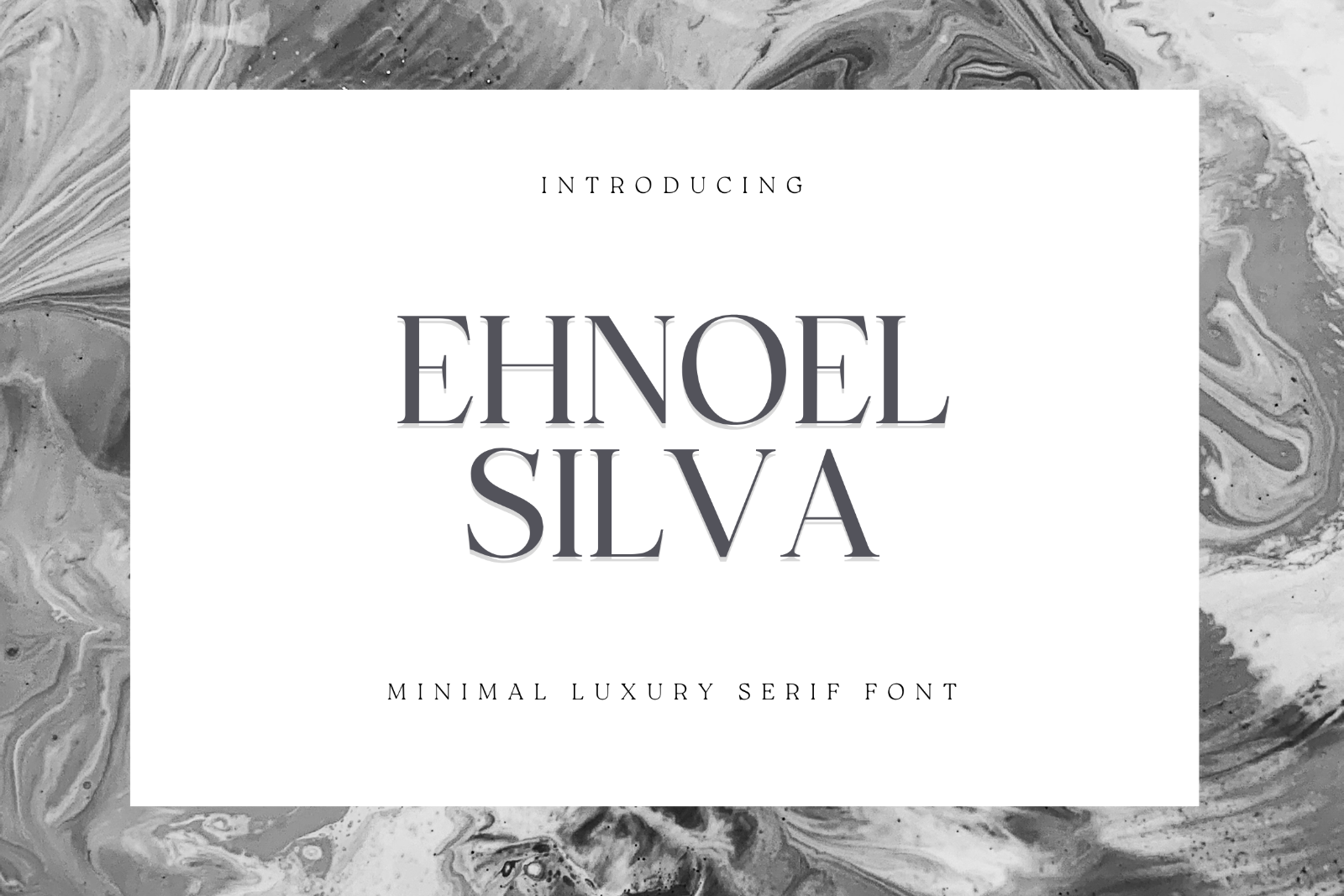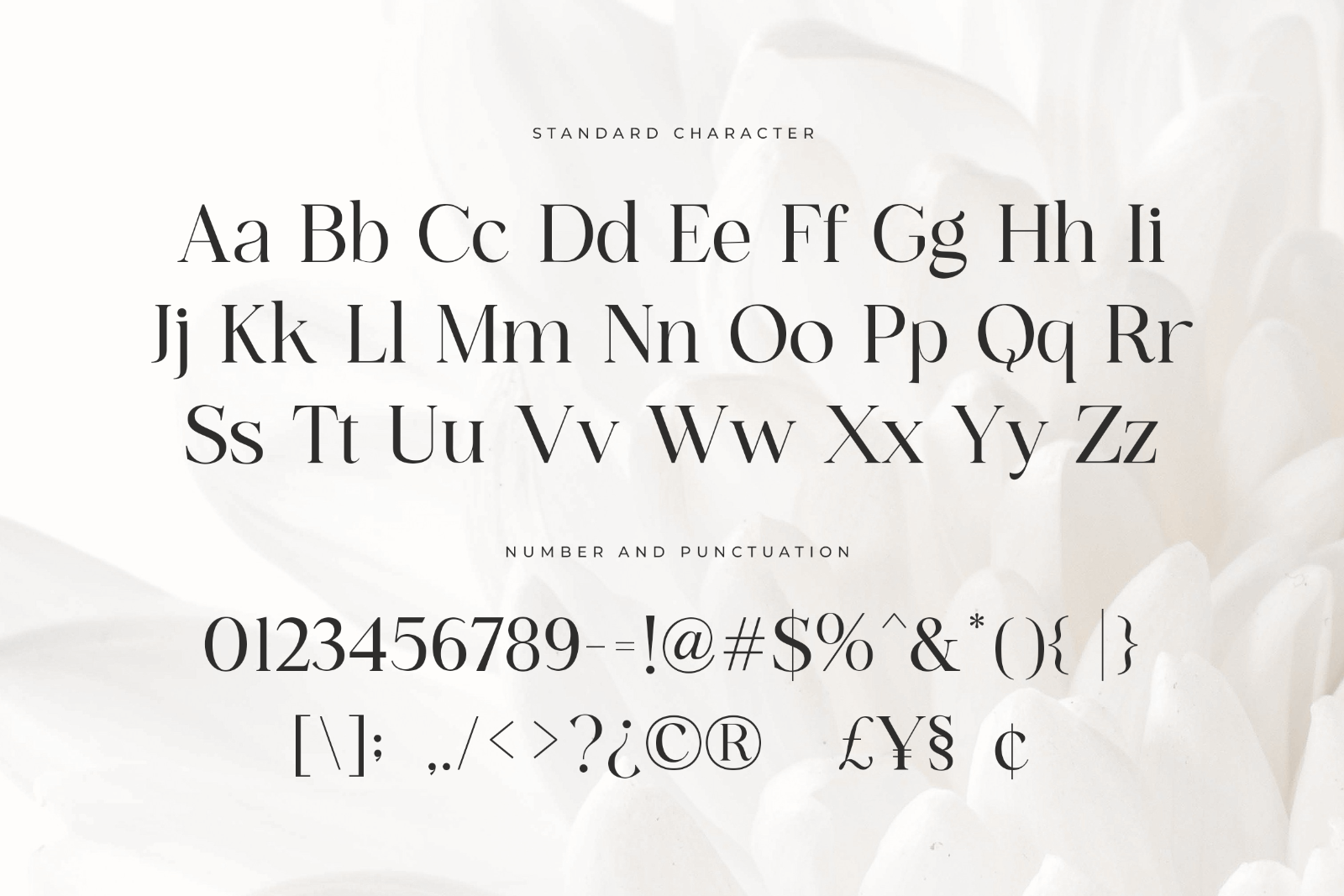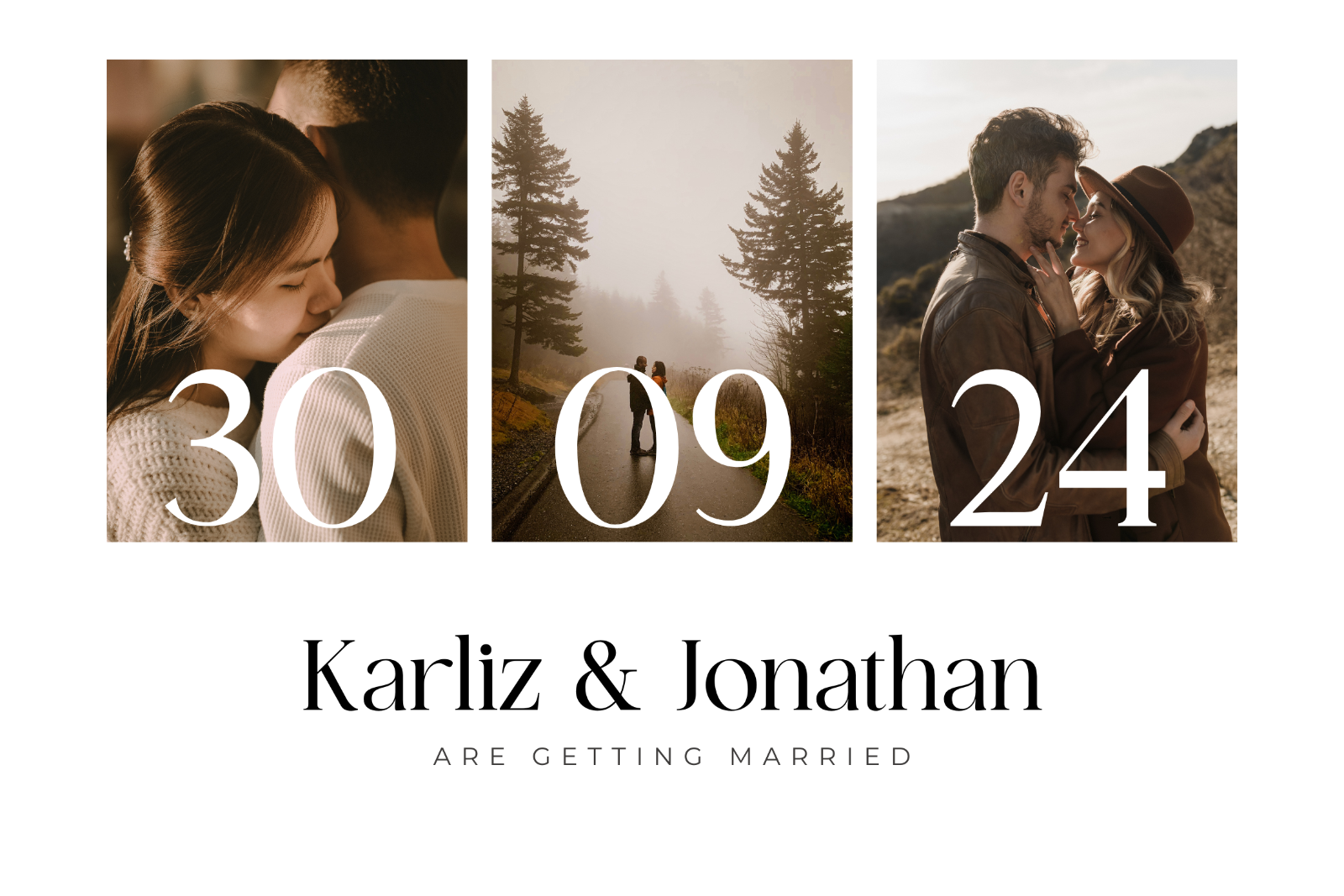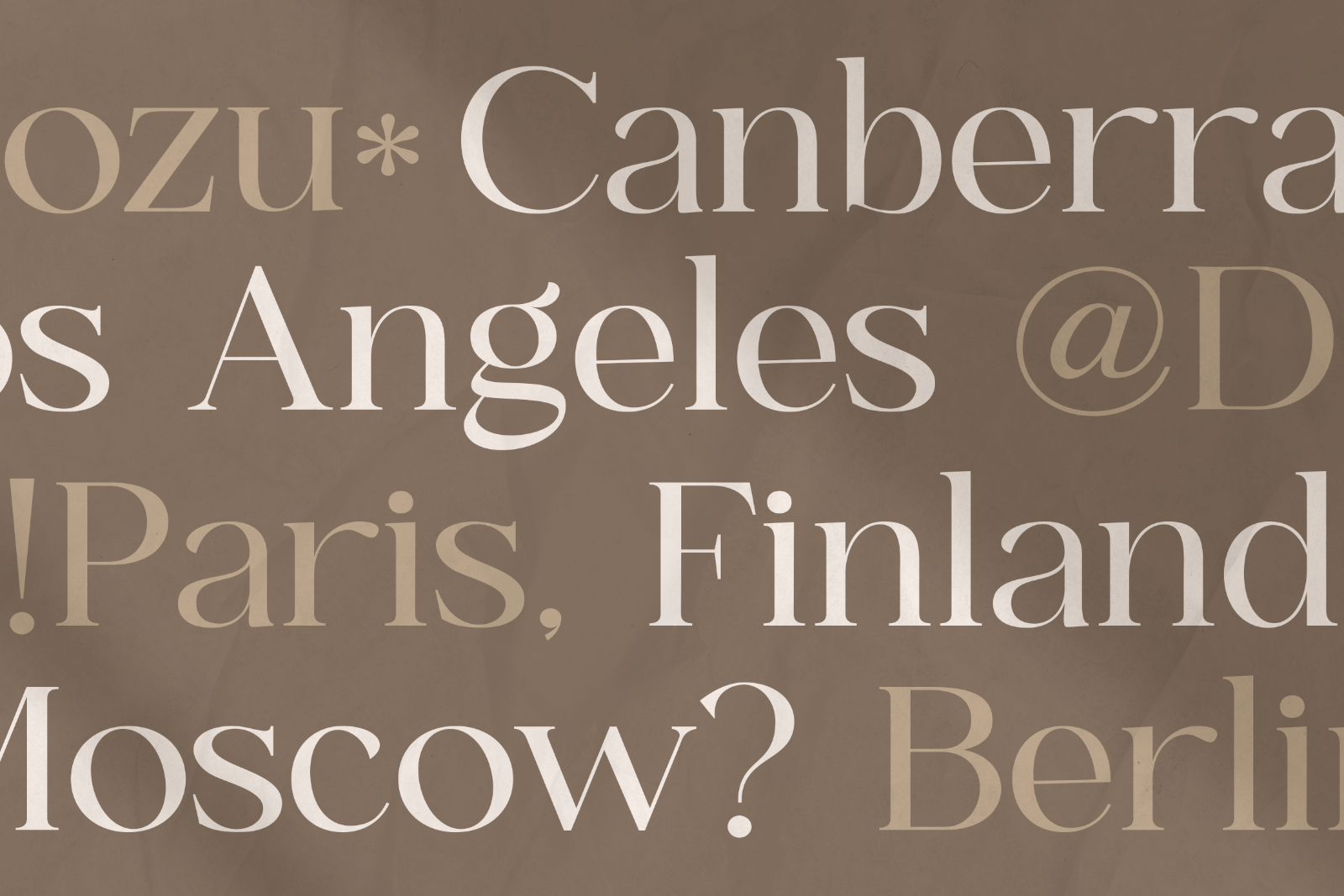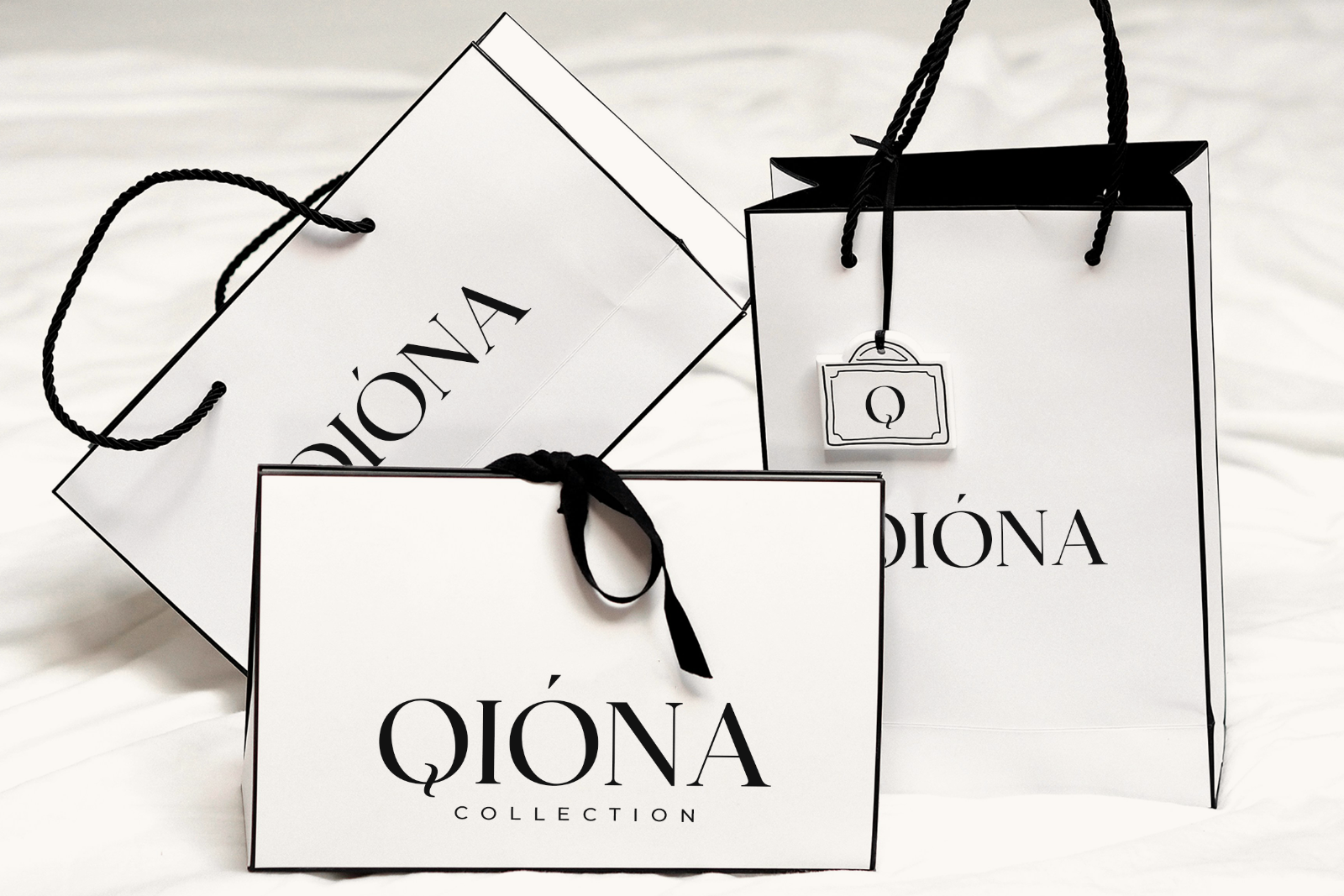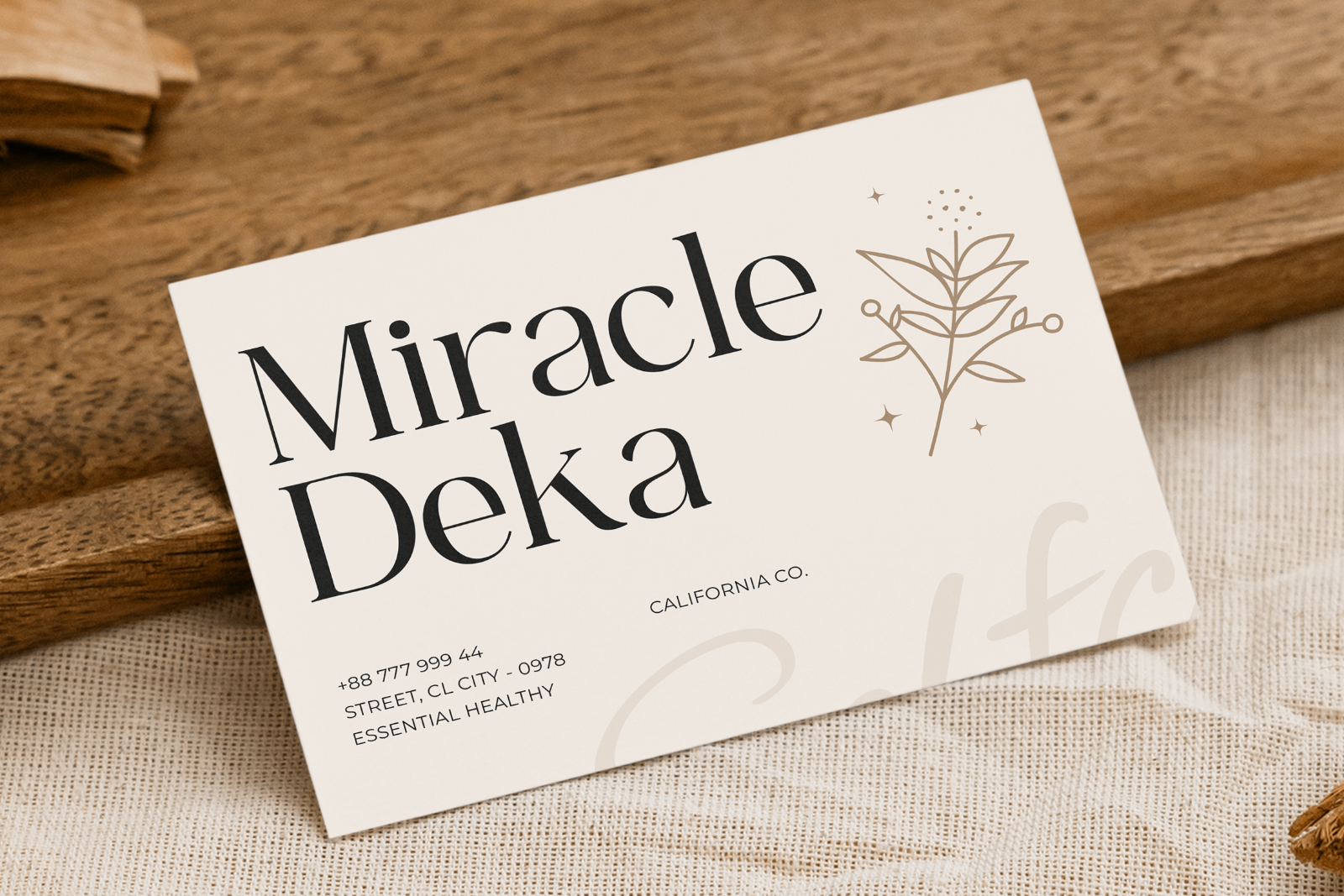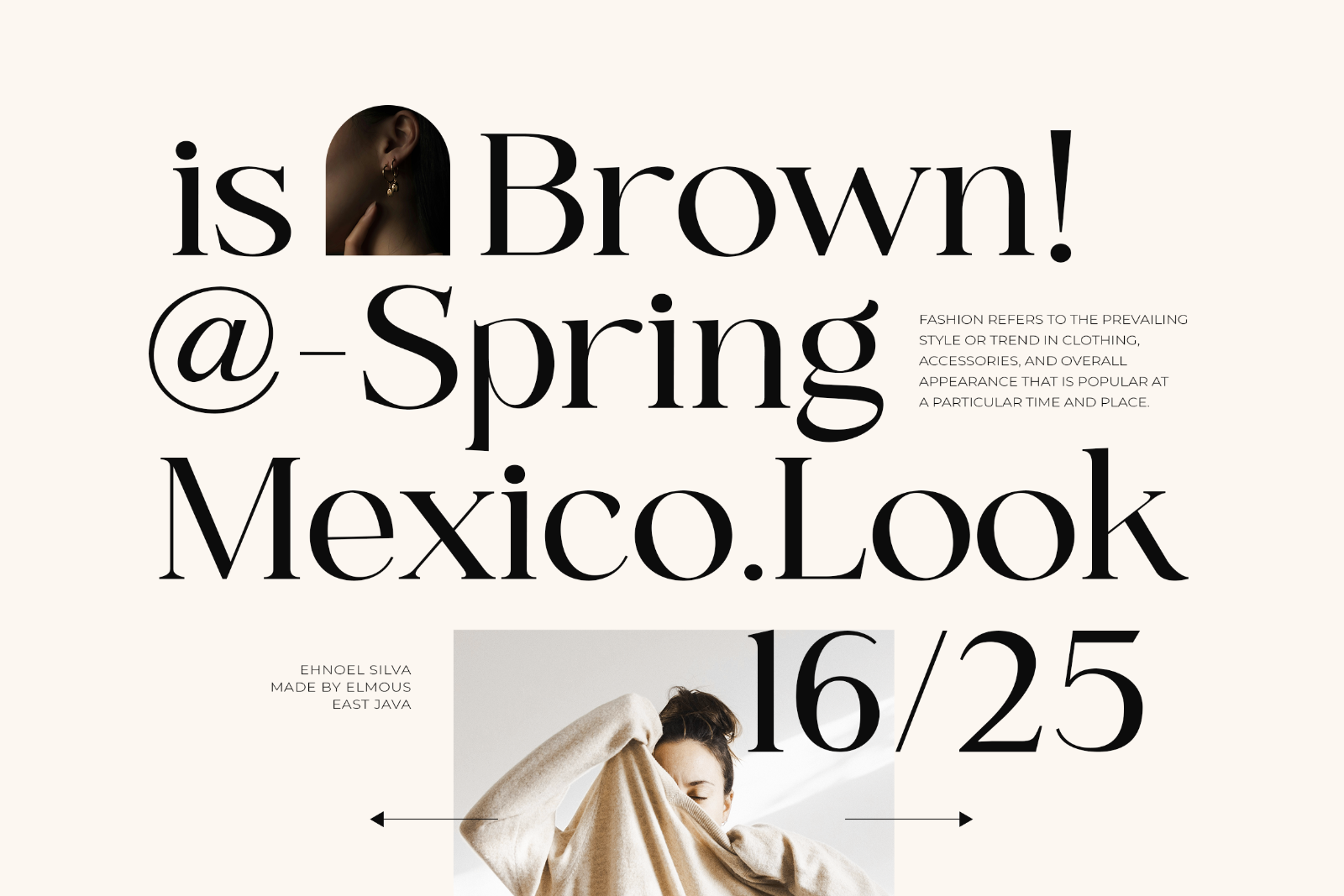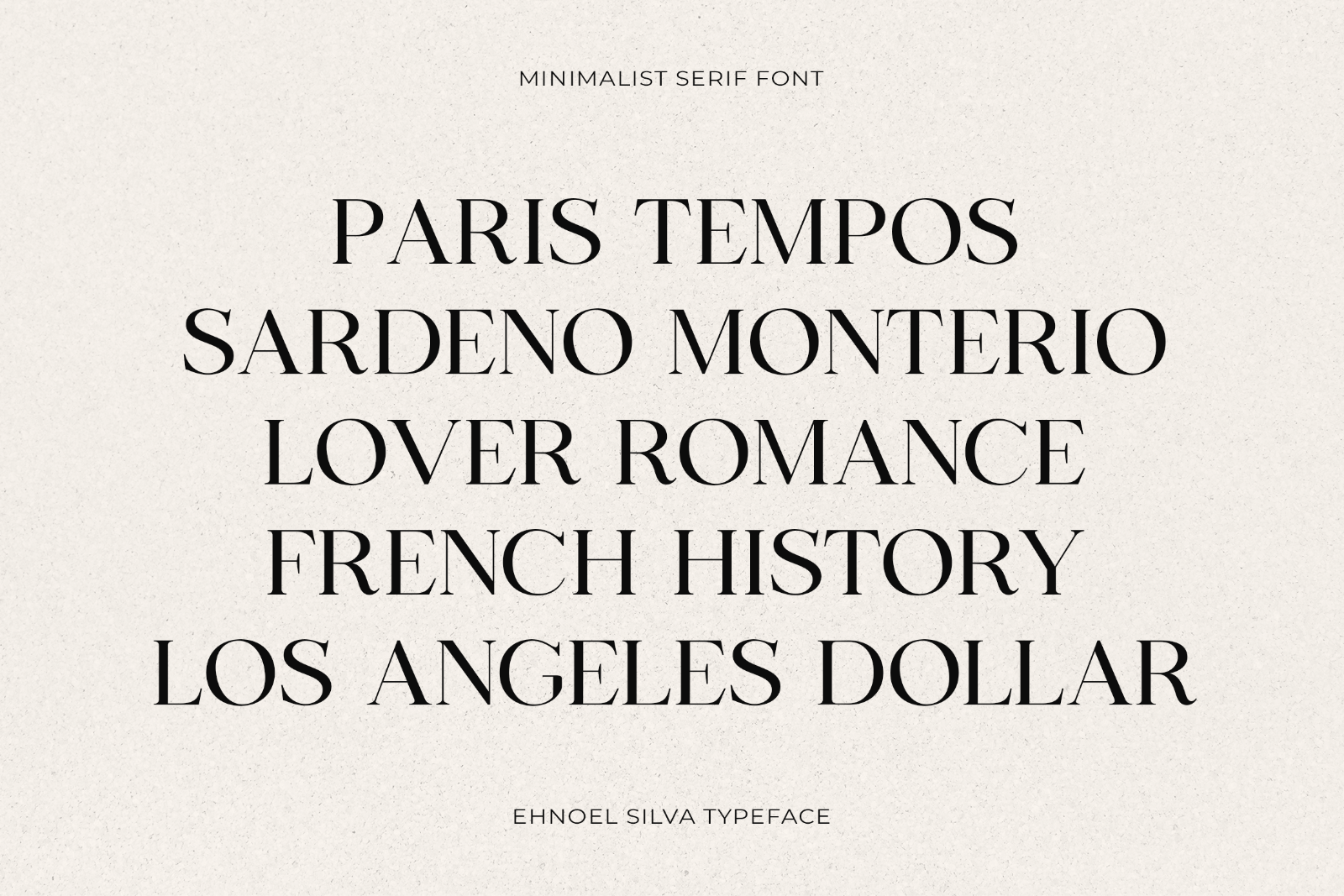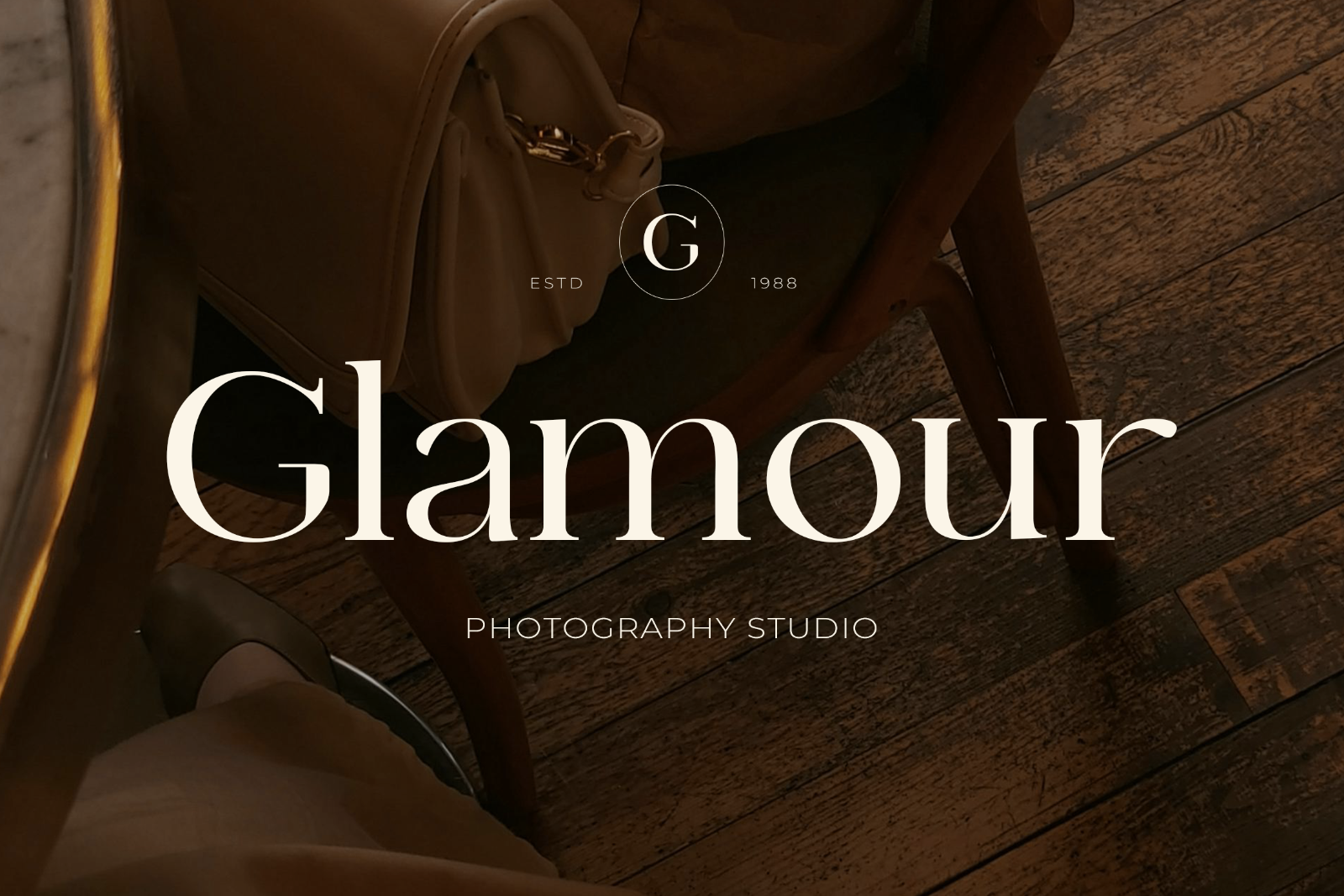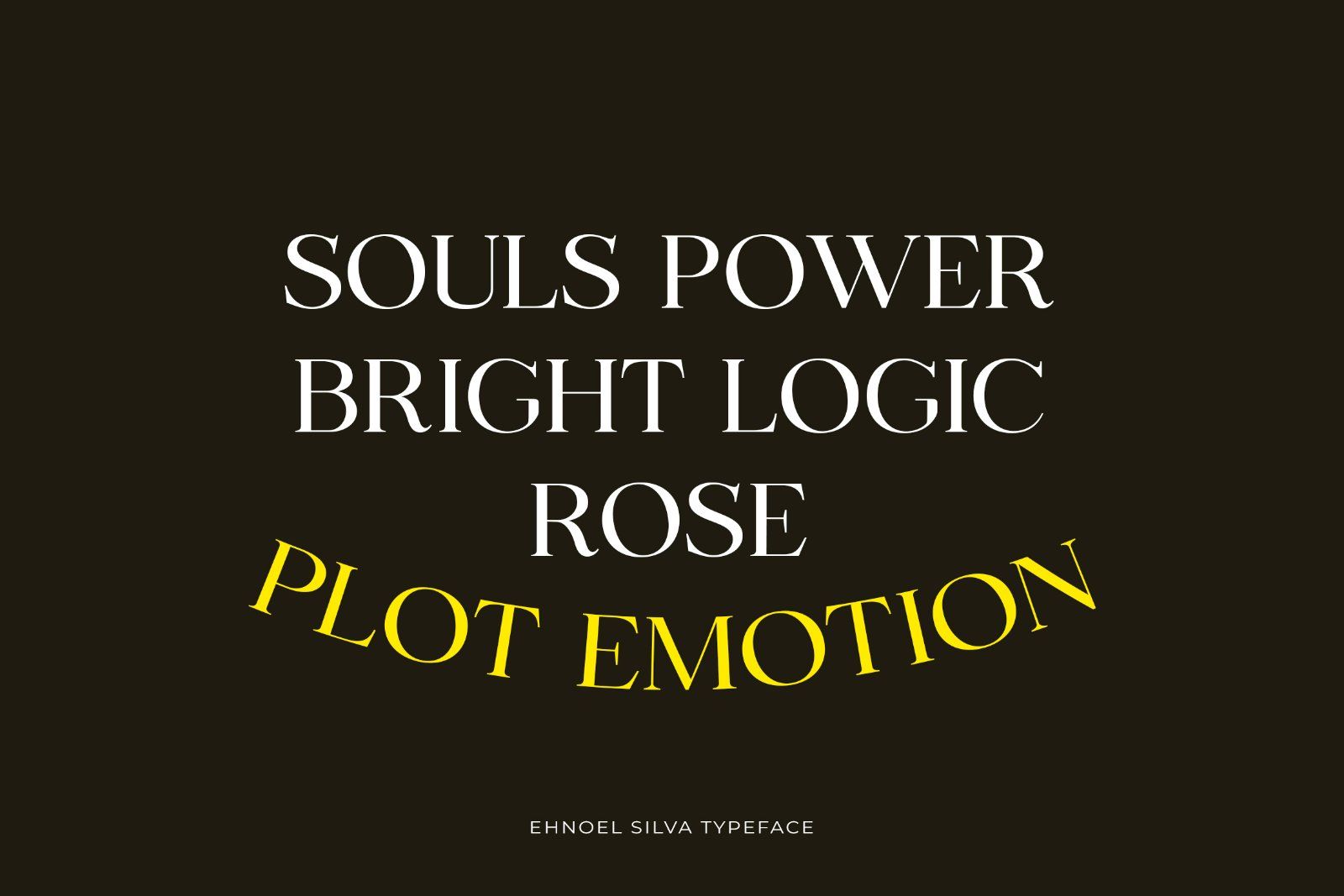
Ehnoel Silva - Elegant serif font with its modern and minimal look, this font brings a luxurious and clean style perfectly suitable for creating elegant, simple, lifestyle design such as social media quotes, wedding invitation, title, packaging, and whatever your heart dreams up!
• Uppercase and Lowecase Characters.
• Numerals and Punctuations.
• Alternates and Ligatures.
• Multilingual Support.